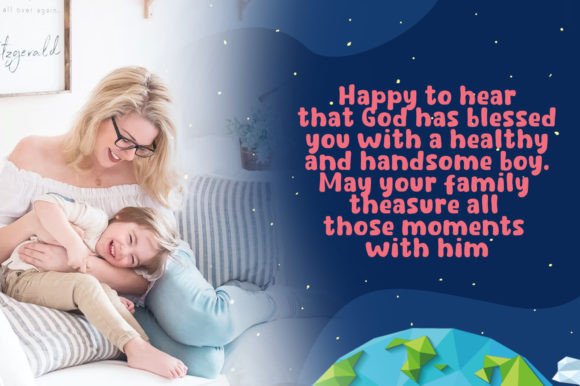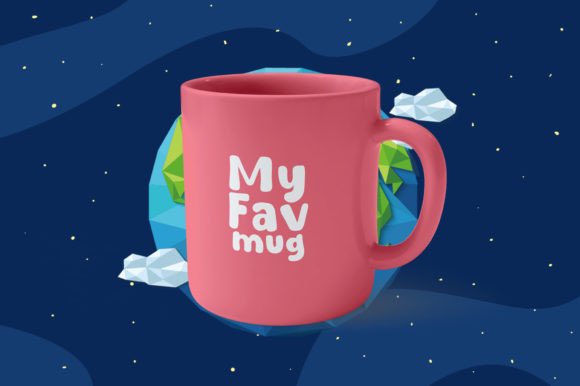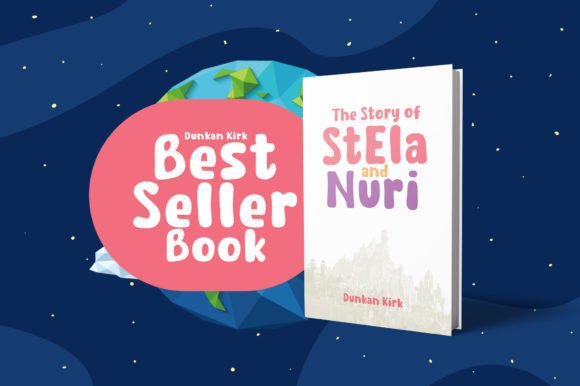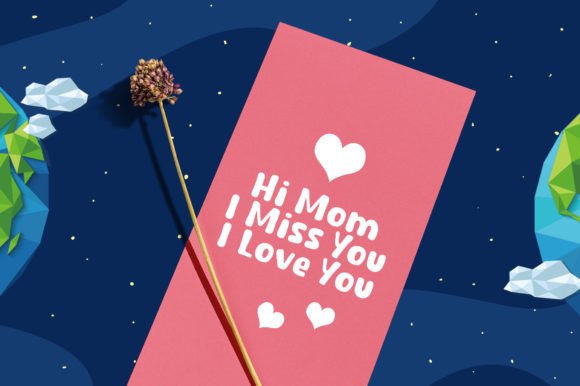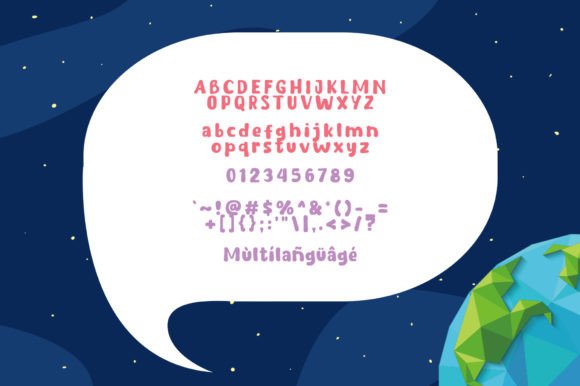
Baby Bumi Font: The Perfect Choice for Your Creative Projects
Are you a designer or crafter looking for a font that can add a touch of modernity and cuteness to your projects? Look no further than the Baby Bumi Font! This bold display font is perfect for a wide range of applications, from posters and logos to magazines, book covers, and banners. In this article, we’ll take a closer look at the Baby Bumi Font and explore its features, benefits, and uses.
What is Baby Bumi Font?
Baby Bumi Font is a modern and cute bold display font that is designed to make your designs stand out. Its unique and playful style makes it perfect for projects that require a touch of whimsy and fun. The font is highly versatile and can be used for a wide range of applications, from print materials like posters, flyers, and brochures to digital projects like social media graphics and website headers.
Key Features of Baby Bumi Font
So, what makes Baby Bumi Font so special? Here are some of its key features:
- Modern and Cute Design: Baby Bumi Font has a unique and playful design that is sure to capture the attention of your audience.
- Bold Display Font: This font is designed to make a statement, with bold and eye-catching letters that are perfect for headlines and titles.
- Highly Versatile: Baby Bumi Font can be used for a wide range of applications, from print materials to digital projects.
- Easily Customizable: The font is highly customizable, allowing you to adjust the size, color, and style to suit your needs.
Benefits of Using Baby Bumi Font
So, why should you choose Baby Bumi Font for your projects? Here are some of the benefits of using this amazing font:
- Adds a Touch of Whimsy and Fun: Baby Bumi Font adds a playful and whimsical touch to your designs, making them more engaging and attention-grabbing.
- Perfect for Creative Projects: This font is perfect for designers, crafters, and artists who want to add a unique and creative touch to their projects.
- Compatible with a Wide Range of Projects: This font can be used for a wide range of projects, from posters and logos to magazines, book covers, and banners.
Uses of Baby Bumi Font
So, what can you use Baby Bumi Font for? Here are some ideas to get you started:
- Posters and Flyers: Use Baby Bumi Font to create eye-catching posters and flyers that grab the attention of your audience.
- Logos and Branding: This font is perfect for creating unique and memorable logos and branding materials.
- Magazines and Book Covers: Use Baby Bumi Font to add a touch of modernity and cuteness to your magazine and book covers.
- Banners and Signs: This font is perfect for creating bold and eye-catching banners and signs that make a statement.